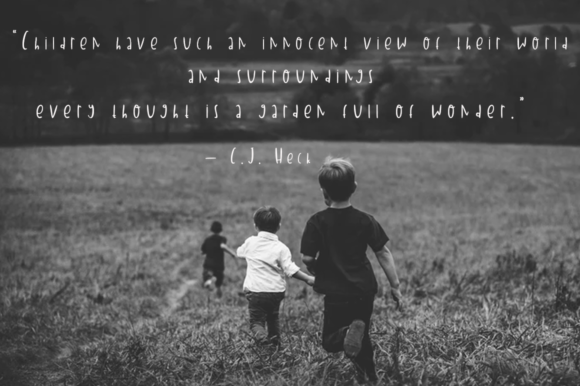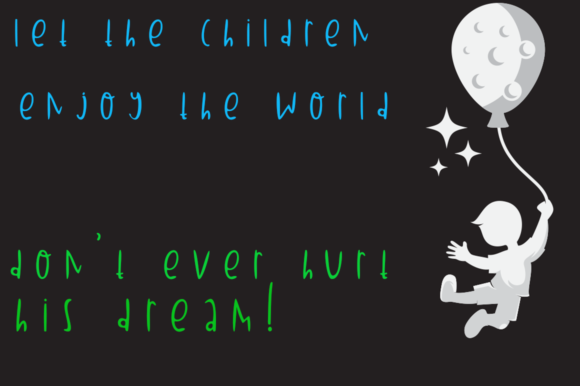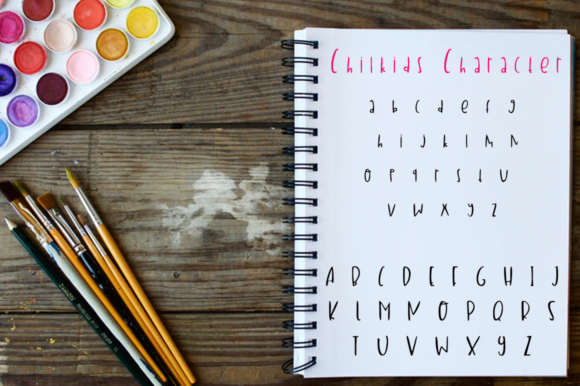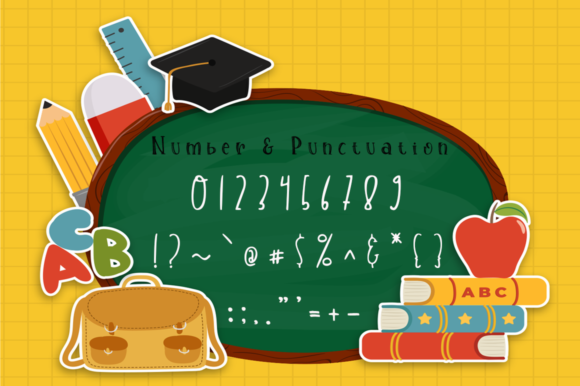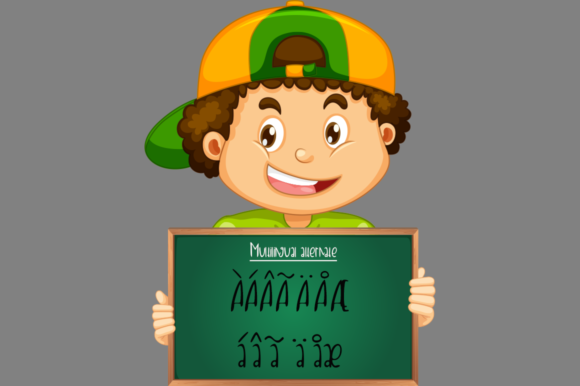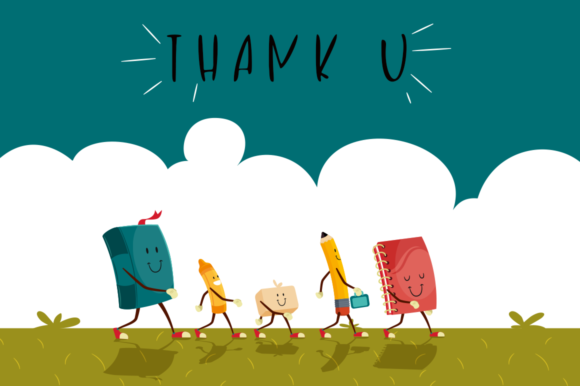
Childkids Font
About Childkids Font
Childkids is a cute and casual handwritten font with a very simple and neat feel. Get creative with its childlike playfulness,
and use it to brighten up any kids and school project!